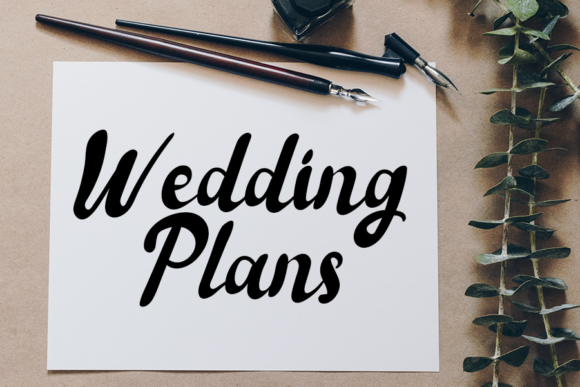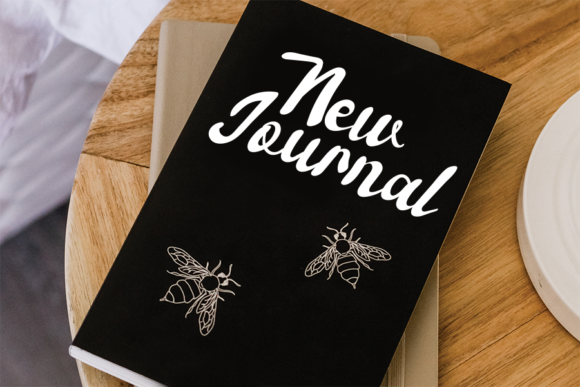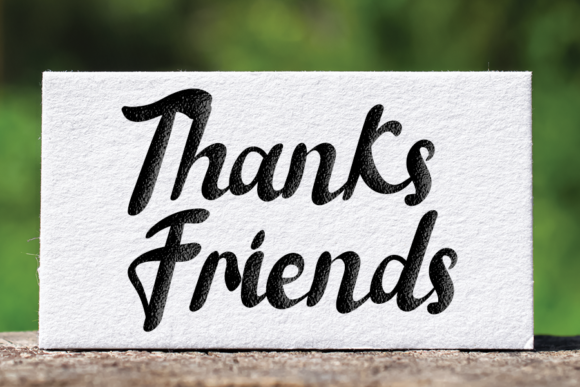
Introducing Agate Font: A Stunning Handwritten Typeface with a Retro Twist
Are you on the hunt for a font that adds a touch of elegance and sophistication to your design projects? Look no further than Agate Font, a beautiful handwritten typeface that exudes a subtly retro style. With its bold yet refined aesthetic, Agate is perfect for a wide range of applications, from magazines and books to business cards, watermarks, and beyond.
What is Agate Font?
Agate Font is a gorgeous handwritten font that boasts a unique, retro-inspired design. Its subtle flair and elegant lines make it an excellent choice for designers and crafters seeking to add a touch of sophistication to their work. Whether you’re creating a stylish magazine, a captivating book, or a professional business card, Agate Font is sure to impress.
Key Features of Agate Font
- Handwritten with love: Agate Font is carefully crafted with a personal touch, giving it a warm and inviting feel.
- Subtly retro style: The font’s retro-inspired design adds a touch of nostalgia and classic charm to any project.
- Bold yet elegant: Agate Font strikes the perfect balance between boldness and refinement, making it suitable for a wide range of applications.
- Highly versatile: Use Agate Font for magazines, books, business cards, watermarks, and any other project that requires a sophisticated touch.
Why Choose Agate Font?
With so many fonts available, why choose Agate Font for your design projects? Here are just a few compelling reasons:
- Unique and distinctive: Agate Font stands out from the crowd with its one-of-a-kind design, ensuring your projects will grab attention.
- Easy to read: Despite its elegant and refined aesthetic, Agate Font remains highly legible, making it perfect for body text and headlines.
- Customizable: Experiment with different colors, sizes, and styles to make Agate Font your own and tailor it to your project’s needs.
Design Inspiration with Agate Font
Agate Font’s versatility knows no bounds, and its applications are endless. Here are a few design inspiration ideas to get you started:
- Magazine and book covers: Use Agate Font as a title font or incorporate it into your design for a stylish and eye-catching cover.
- Business cards and stationery: Add a touch of sophistication to your business cards, letterheads, and invoices with Agate Font.
- Watermarks and branding: Use Agate Font to create elegant watermarks or incorporate it into your brand’s identity for a refined look.
Tips for Using Agate Font Effectively
To get the most out of Agate Font, keep the following tips in mind:
- Pair with complementary fonts: Combine Agate Font with other fonts that complement its style to create a harmonious and visually appealing design.
- Experiment with colors and textures: Add depth and interest to your design by experimenting with different colors and textures in conjunction with Agate Font.
- Pay attention to spacing and kerning: Ensure your text is easy to read by adjusting the spacing and kerning to suit Agate Font’s unique characteristics.
Agate Font is a stunning handwritten typeface that brings a touch of elegance and sophistication to any design project. With its subtly retro style, bold yet refined aesthetic, and versatility, Agate Font is an excellent choice for designers and crafters seeking to elevate their work. Whether you’re creating a magazine, book, business card, or watermark, Agate Font is sure to impress. So why wait? Give Agate Font a try today and discover the perfect font for your next design project!